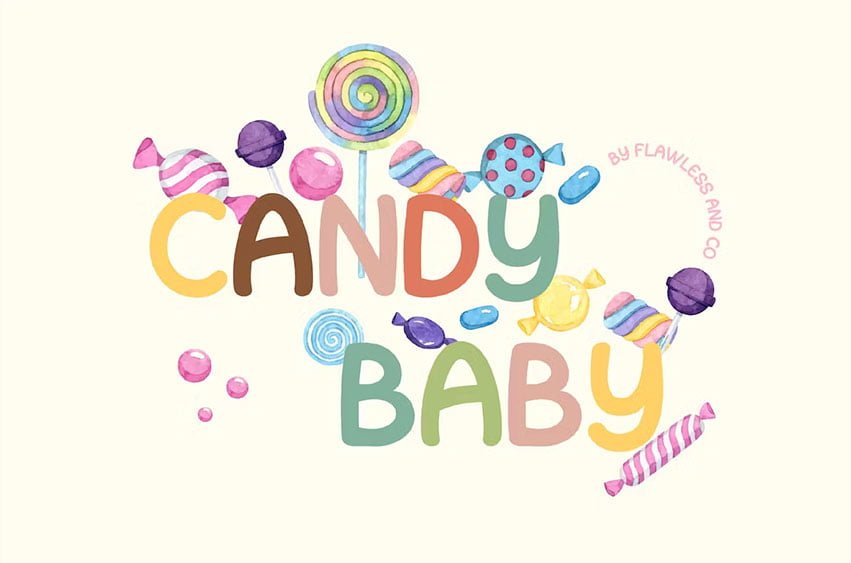
Introducing “Candy Baby” – a delightful and whimsical font that adds a touch of playfulness to your designs. With its unique and charismatic letterforms, Candy Baby brings a sense of joy and lightheartedness to any project. This font is suitable for branding, business, logos, magazines, and others.